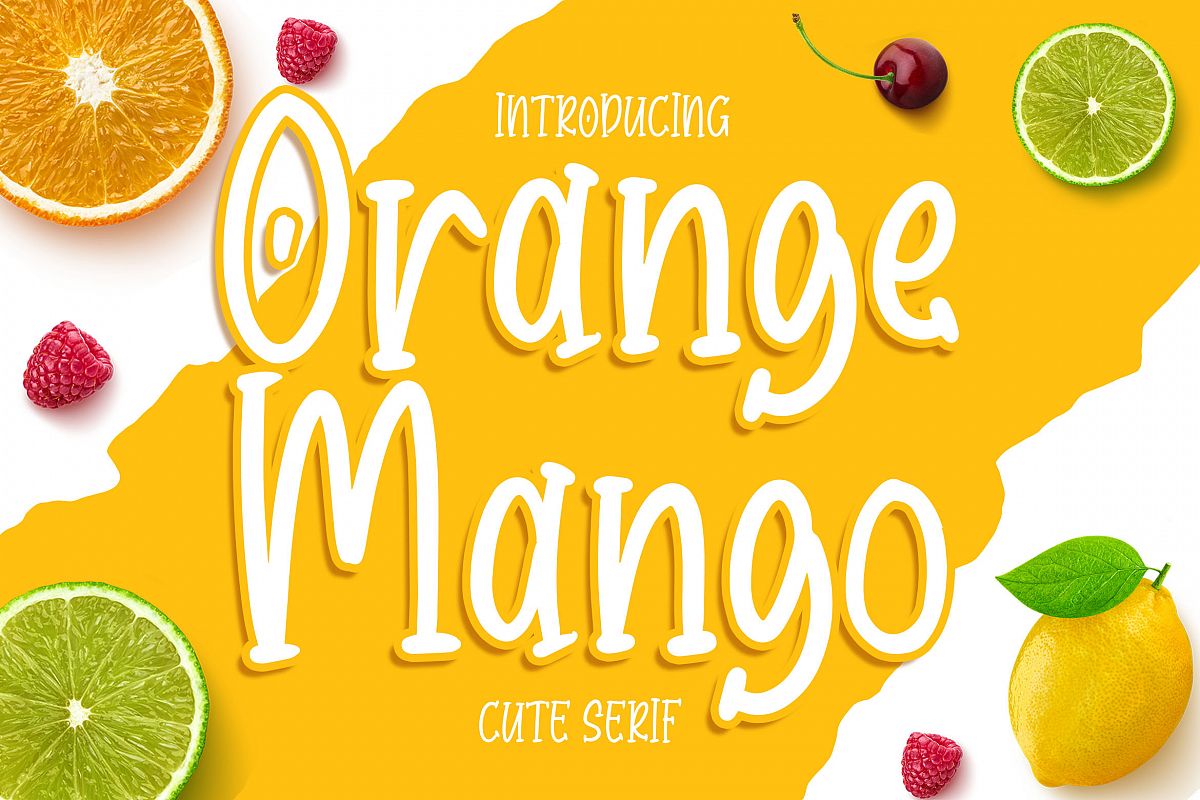
Orange Mango - Cute Serif Font
Introducing of our new product the name is Orange Mango Cute Serif Font. Orange Mango inspired by modern calligraphy this font is a fun theme very good for Calligraphy serif, poster, food, wedding, branding etc